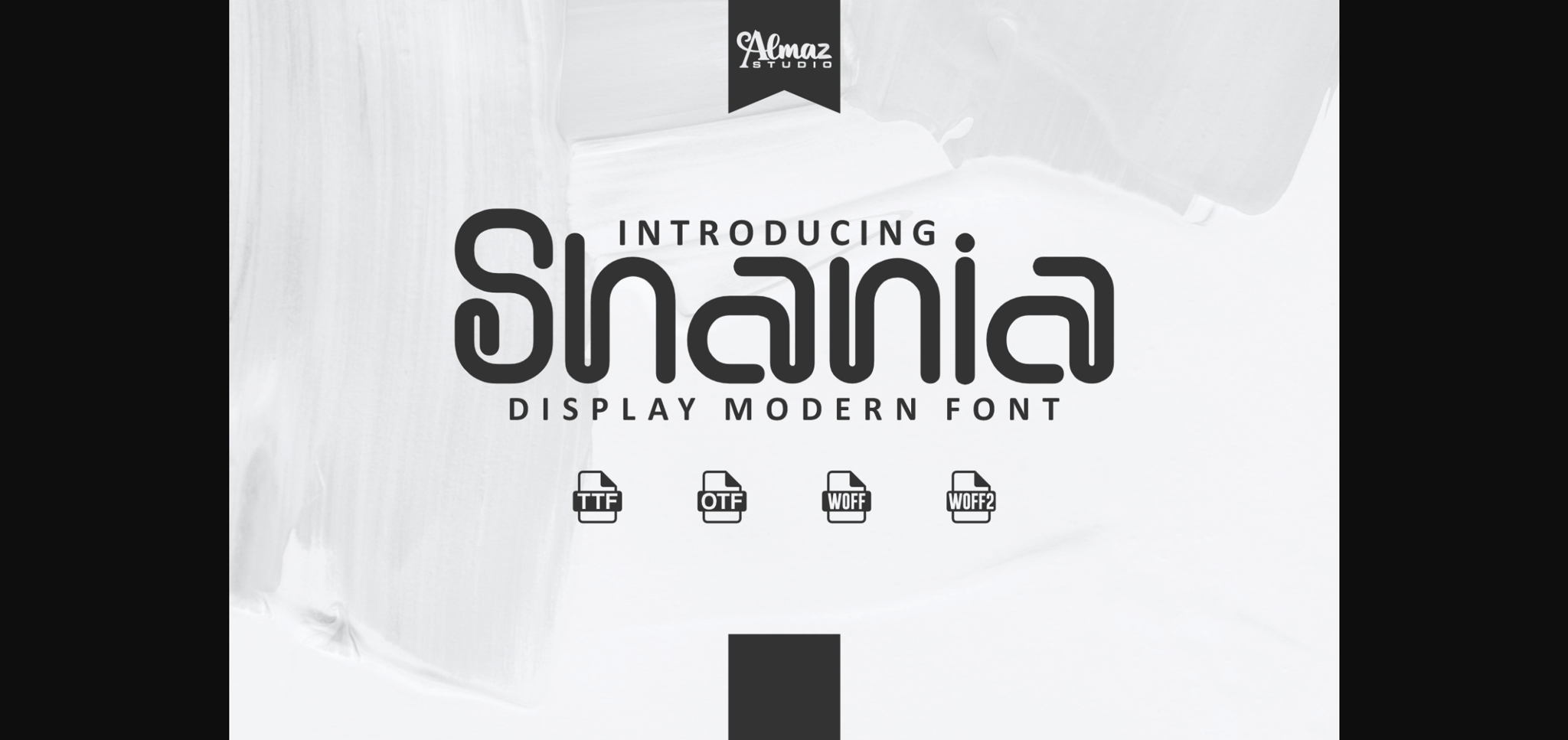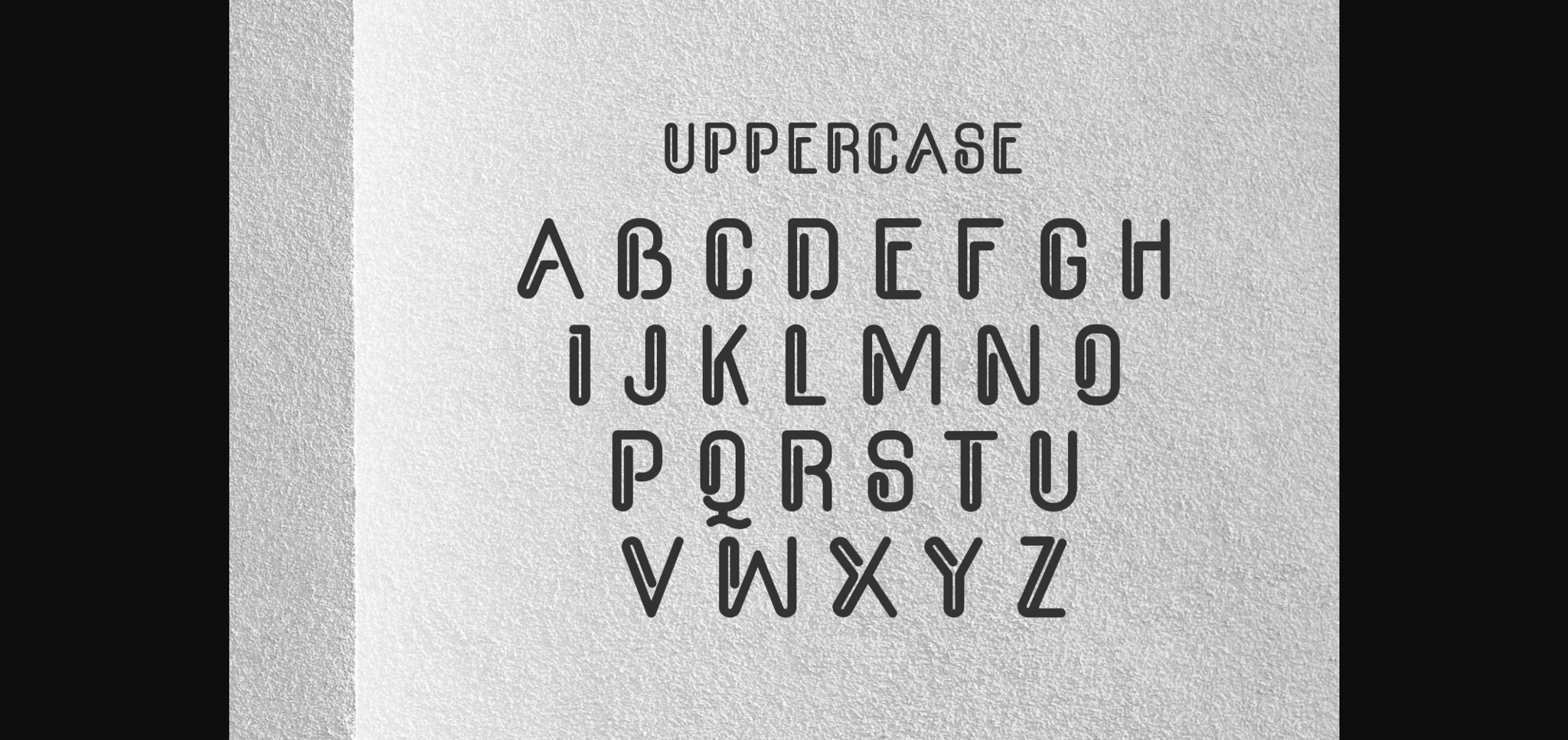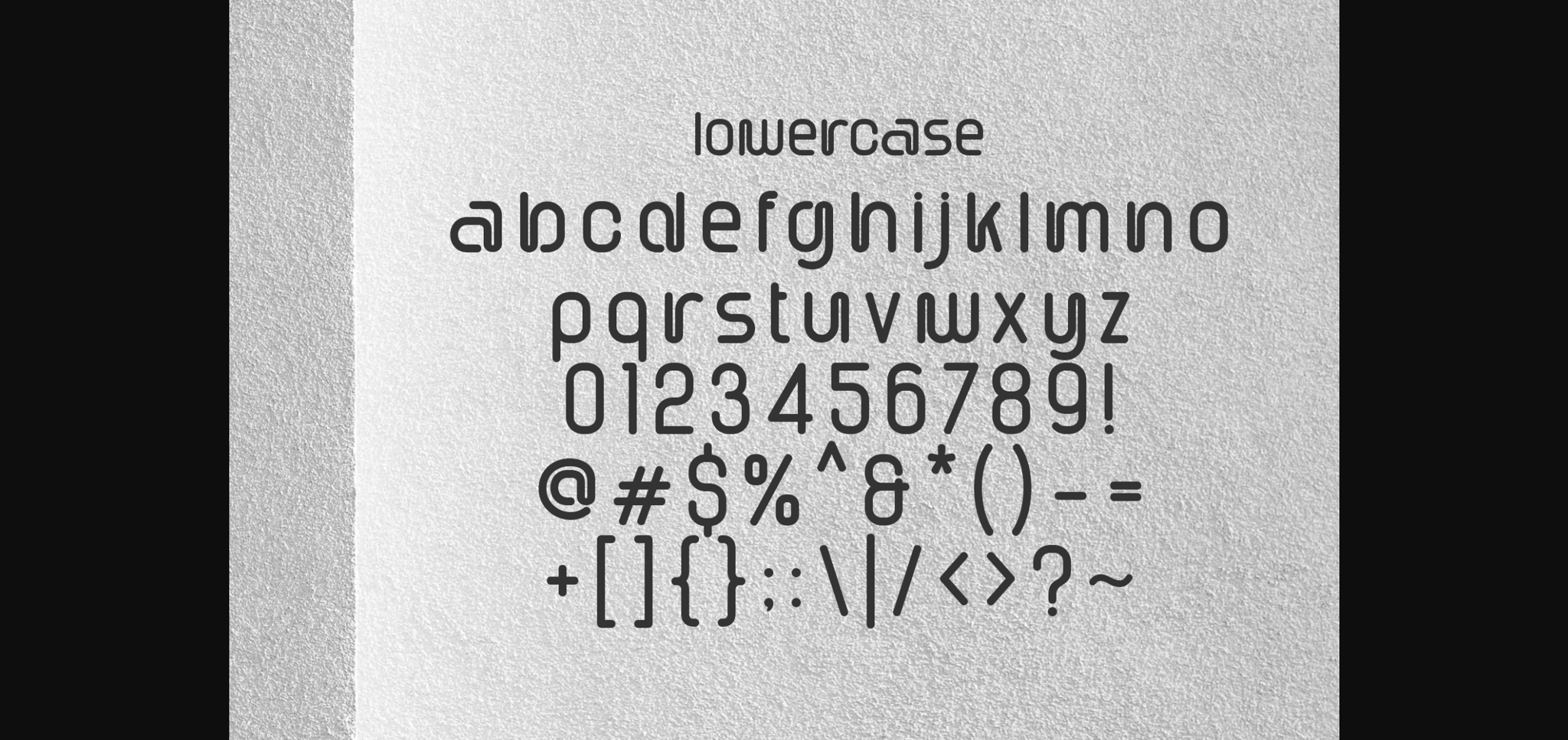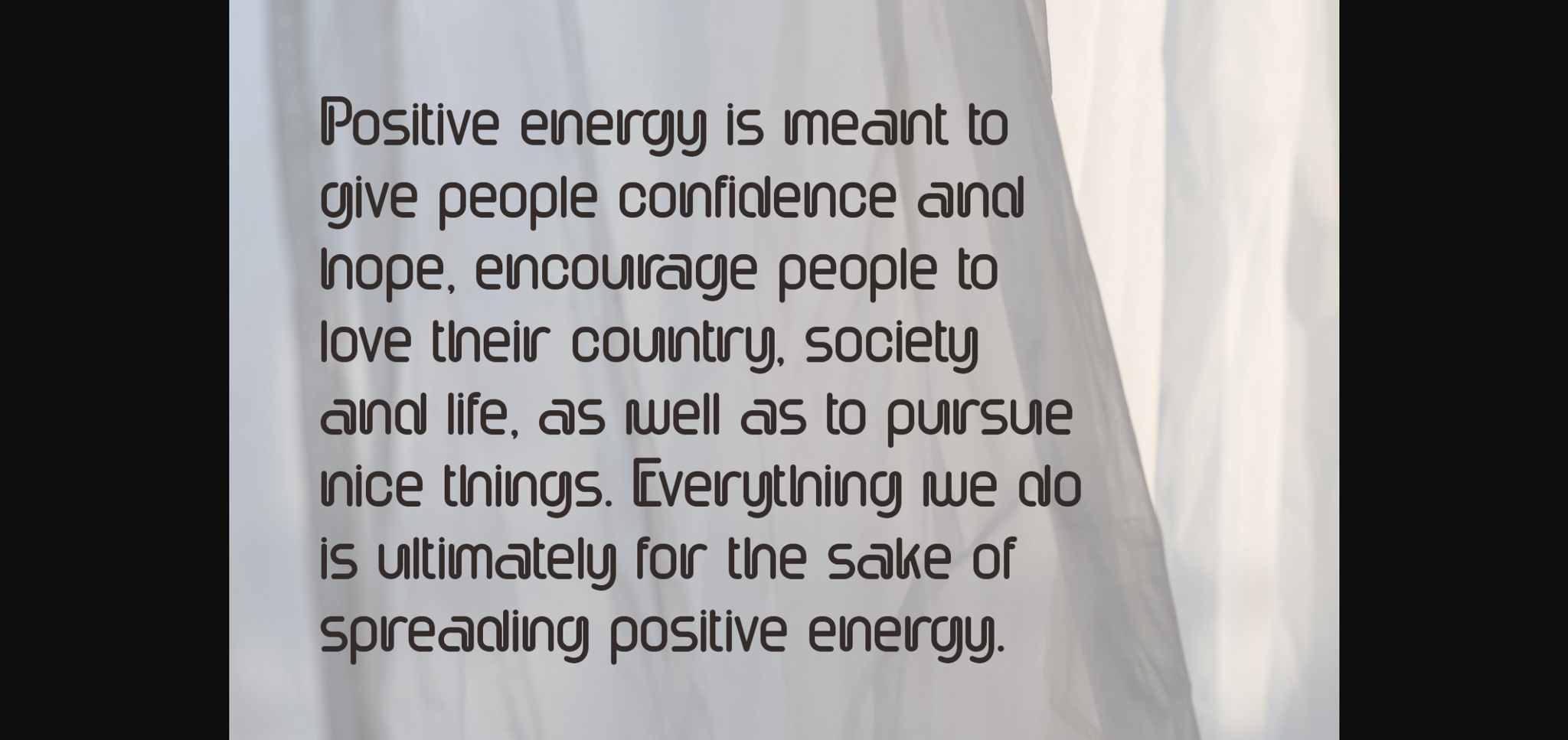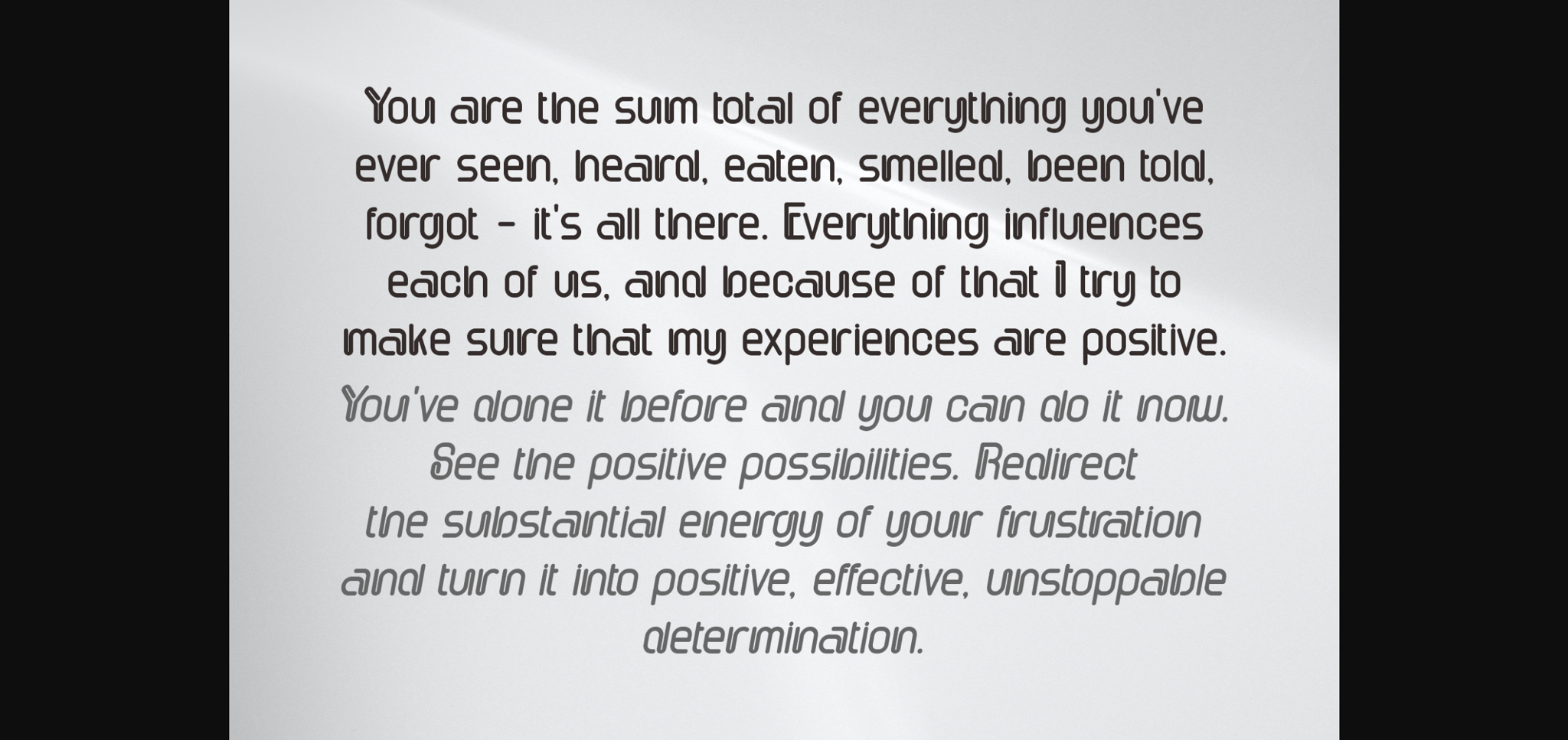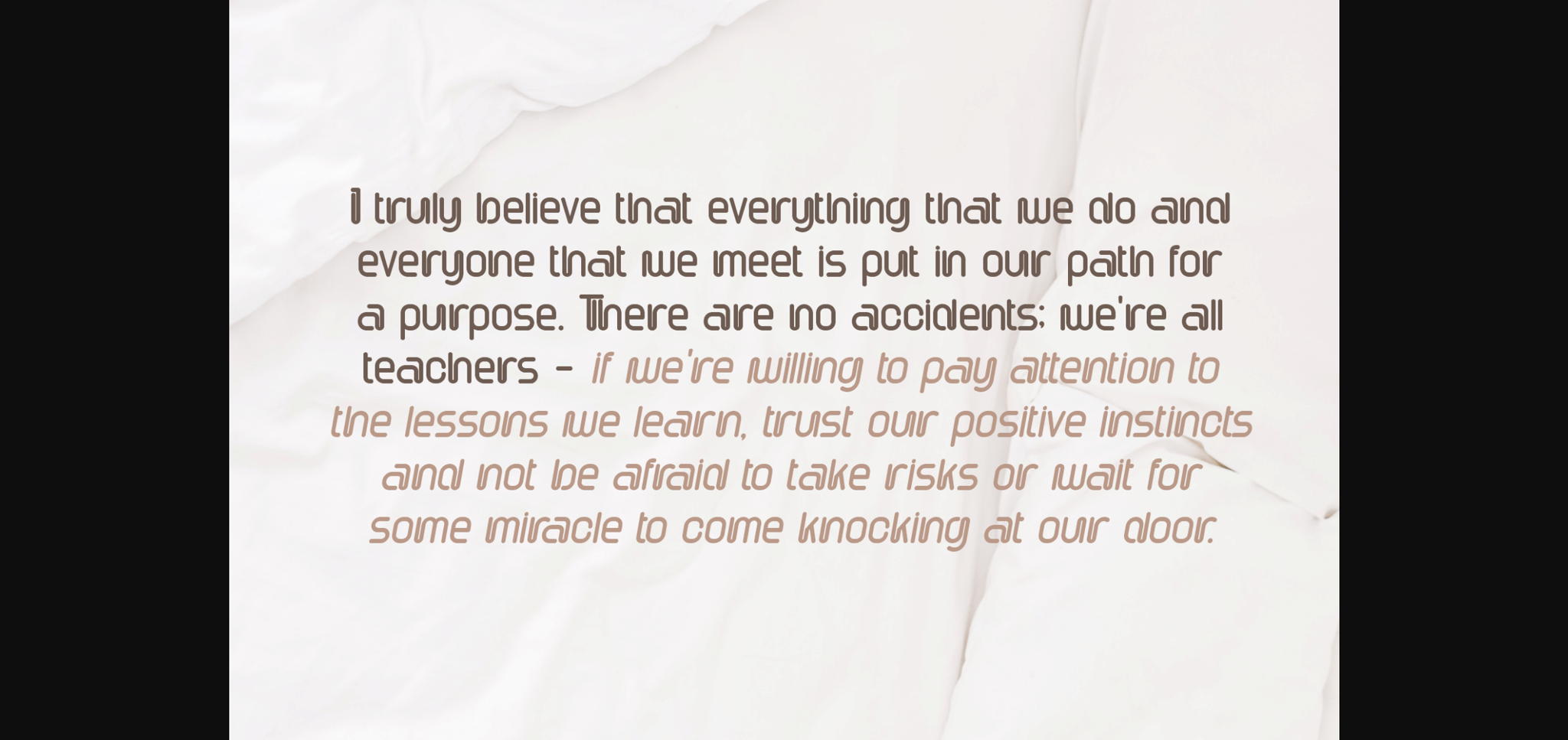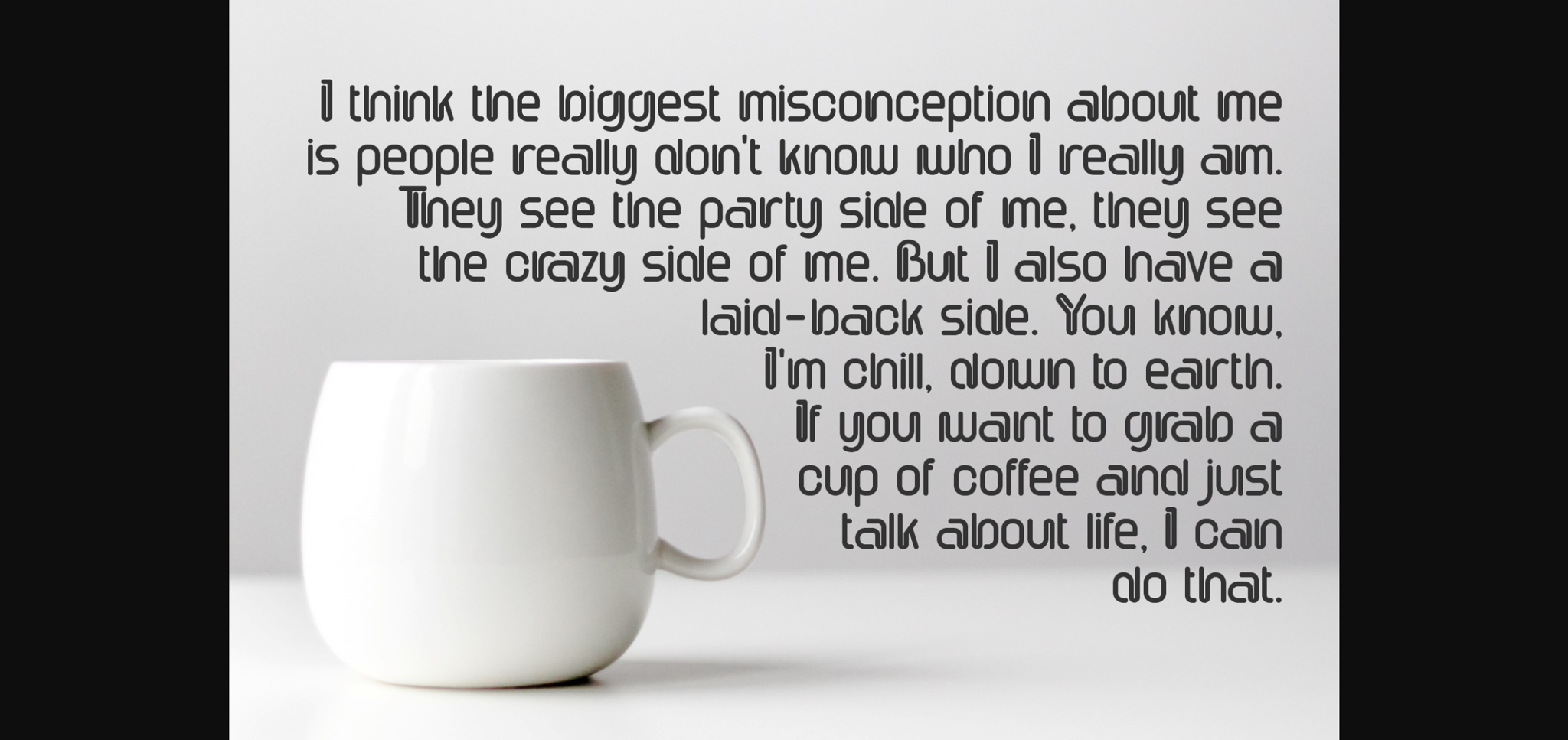
About Shania Font
Shania Font is an ultramodern, ultra compact sans serif typeface. It was designed for maximum compression, allowing you to fit more words in a line than techno typefaces normally allow. Shania is at the normal typeface compression limit. This allows you to install the fonts on a computer and use them to create posters, web graphics, game graphics, t-shirts, videos, signs, logos, and more.